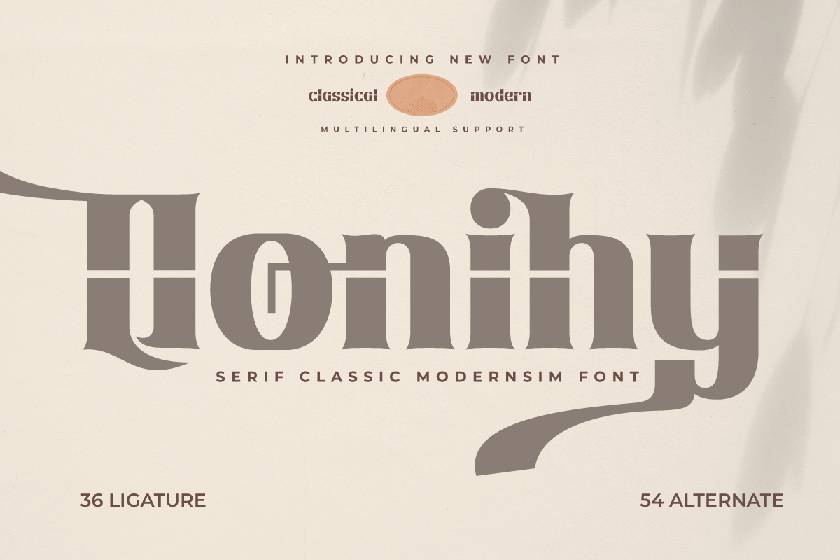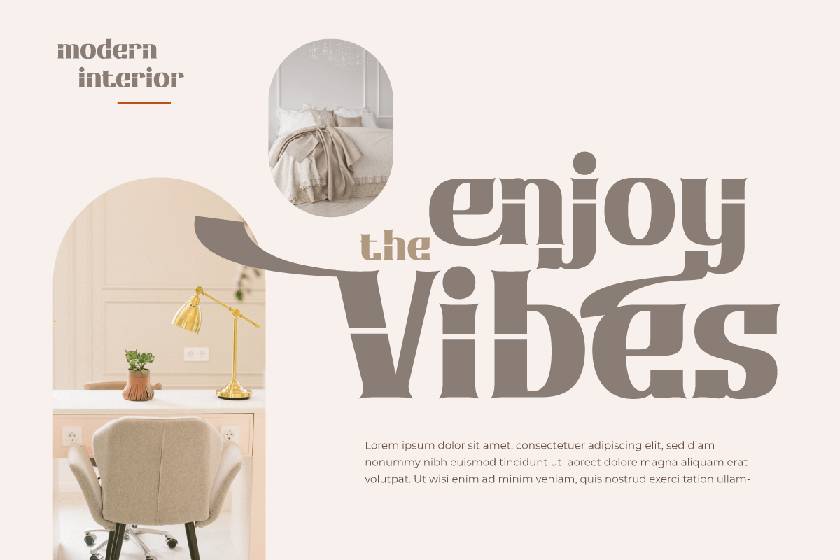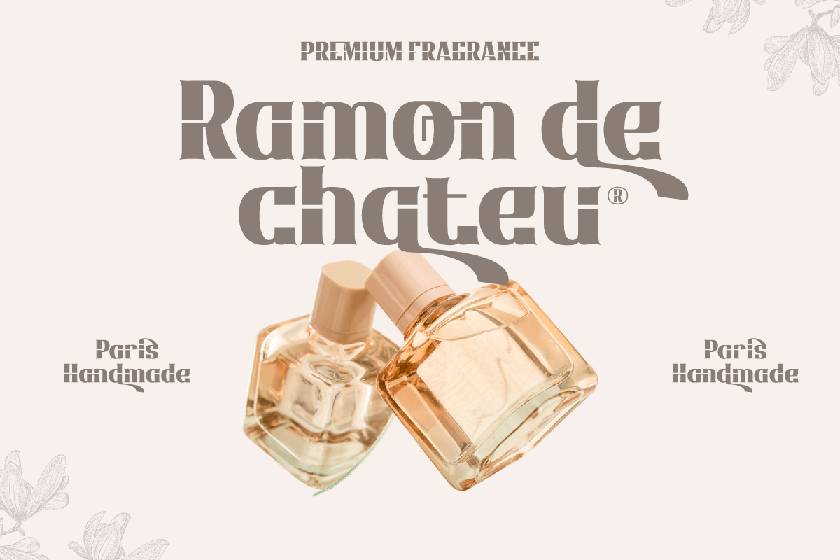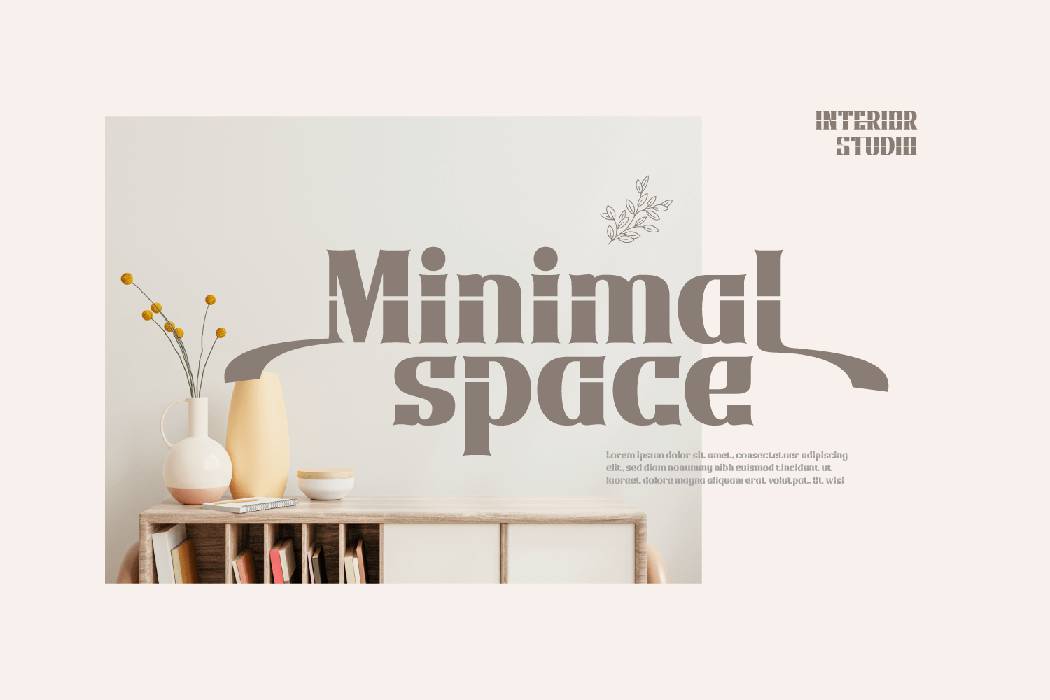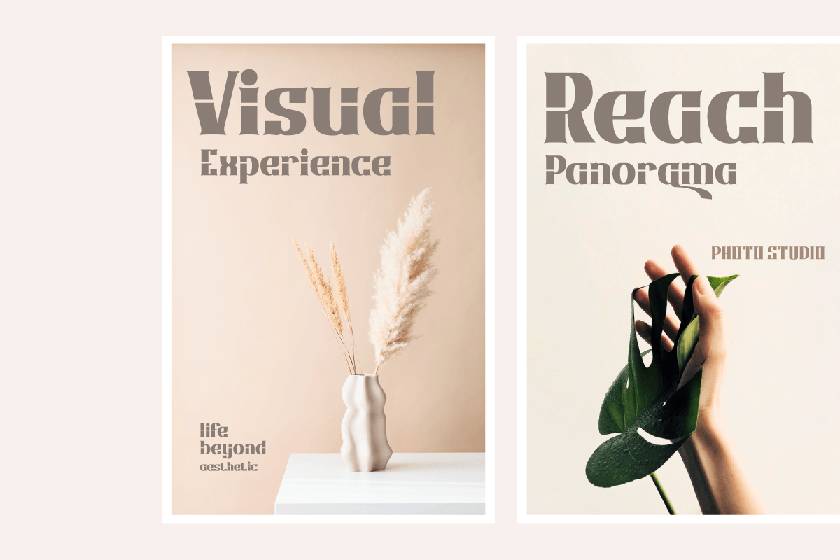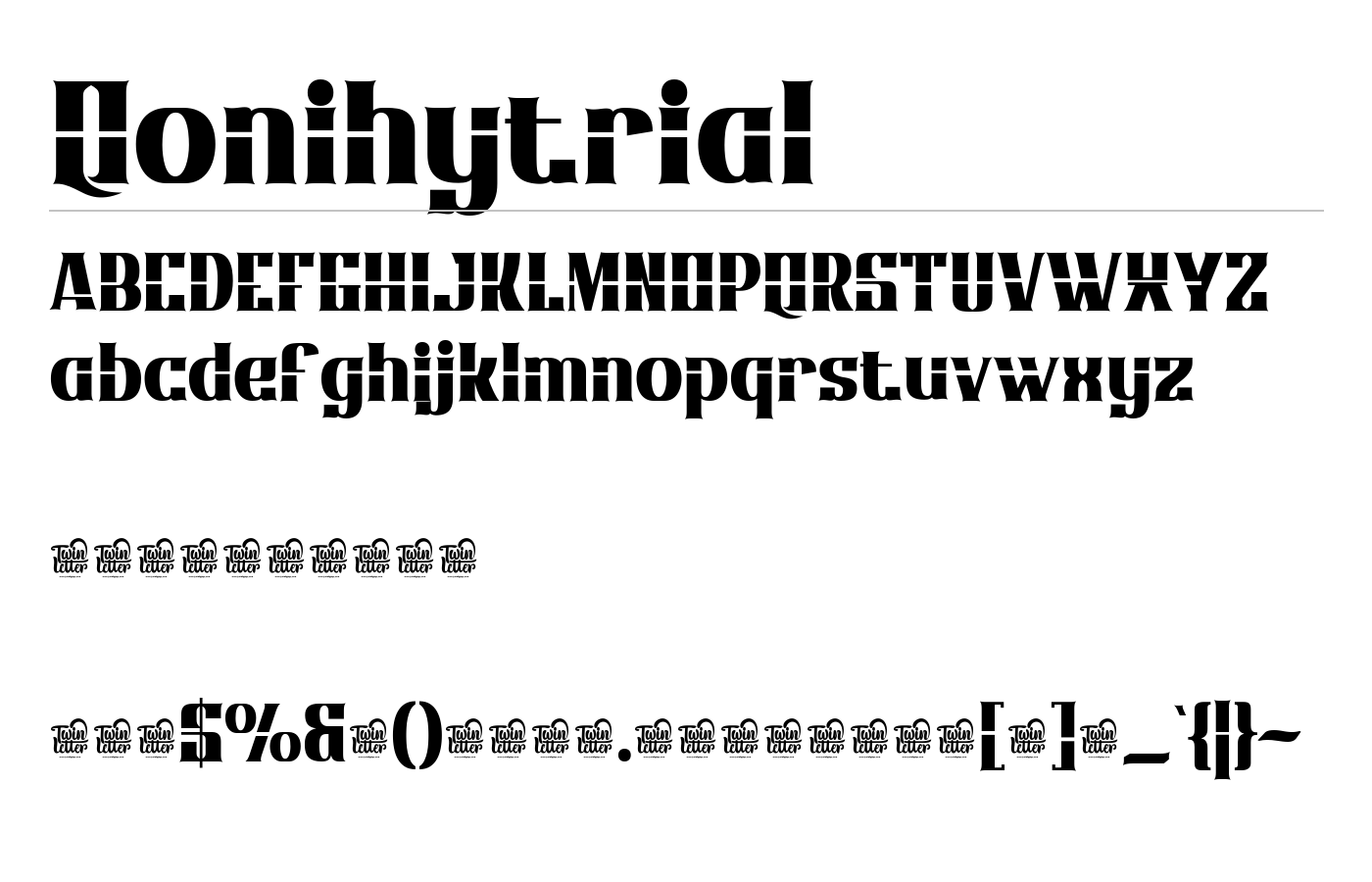
Qonihy is a bold slab serif font with a strong presence, featuring high contrast between thick and thin strokes and sharp, blocky serifs that add a distinctive, vintage-inspired touch. Its condensed width and prominent x-height create an impactful, energetic style perfect for striking headlines, branding, and editorial designs that seek to convey confidence and a classic yet modern flair. This font works well in contexts where a bold statement is needed, such as logos, posters, and luxury packaging.
Qonihy Font
About Qonihy Font